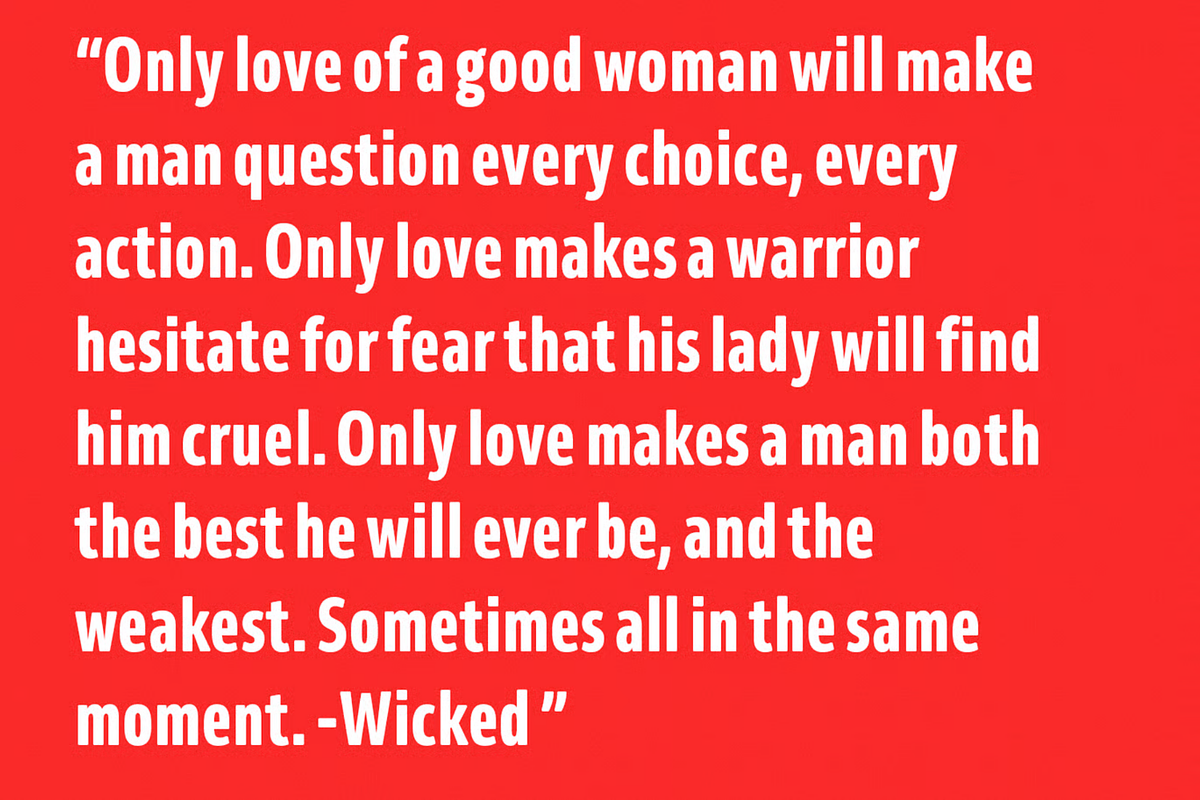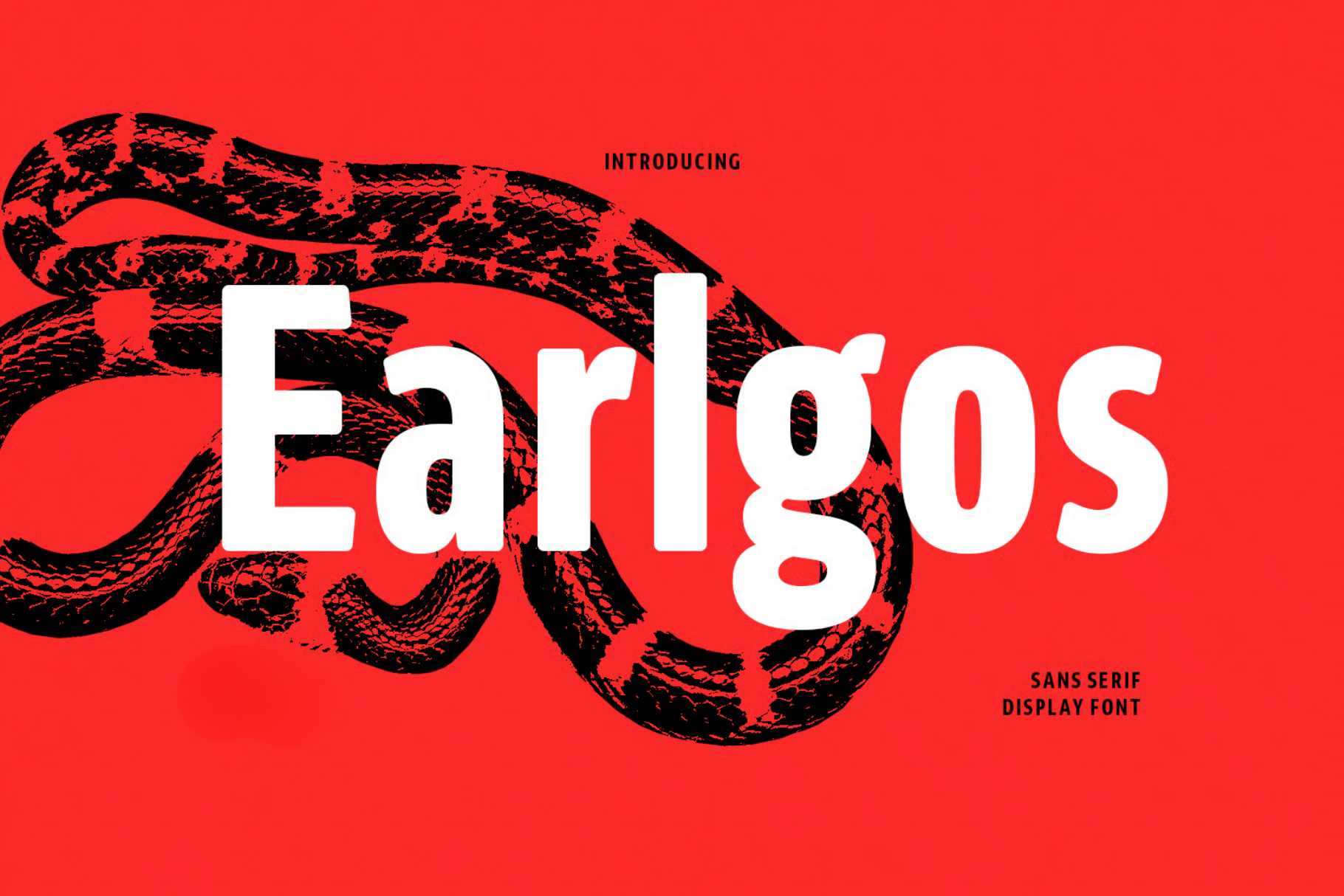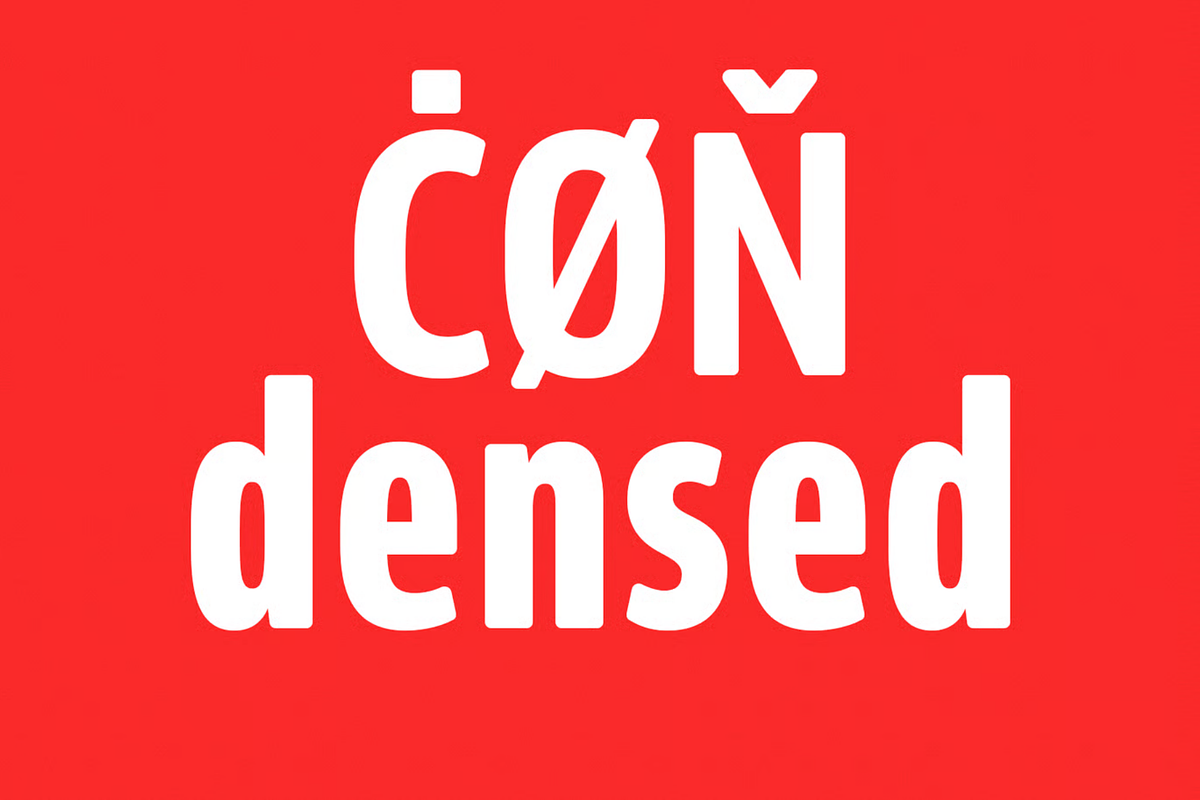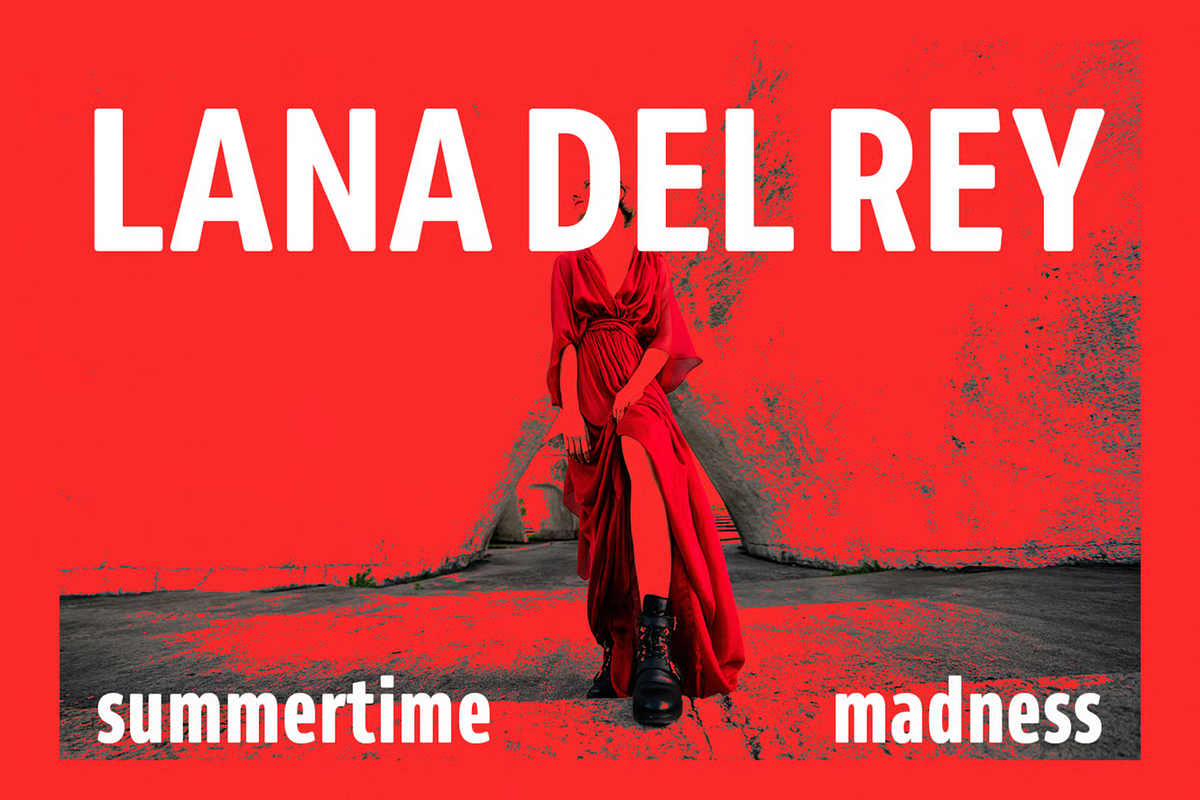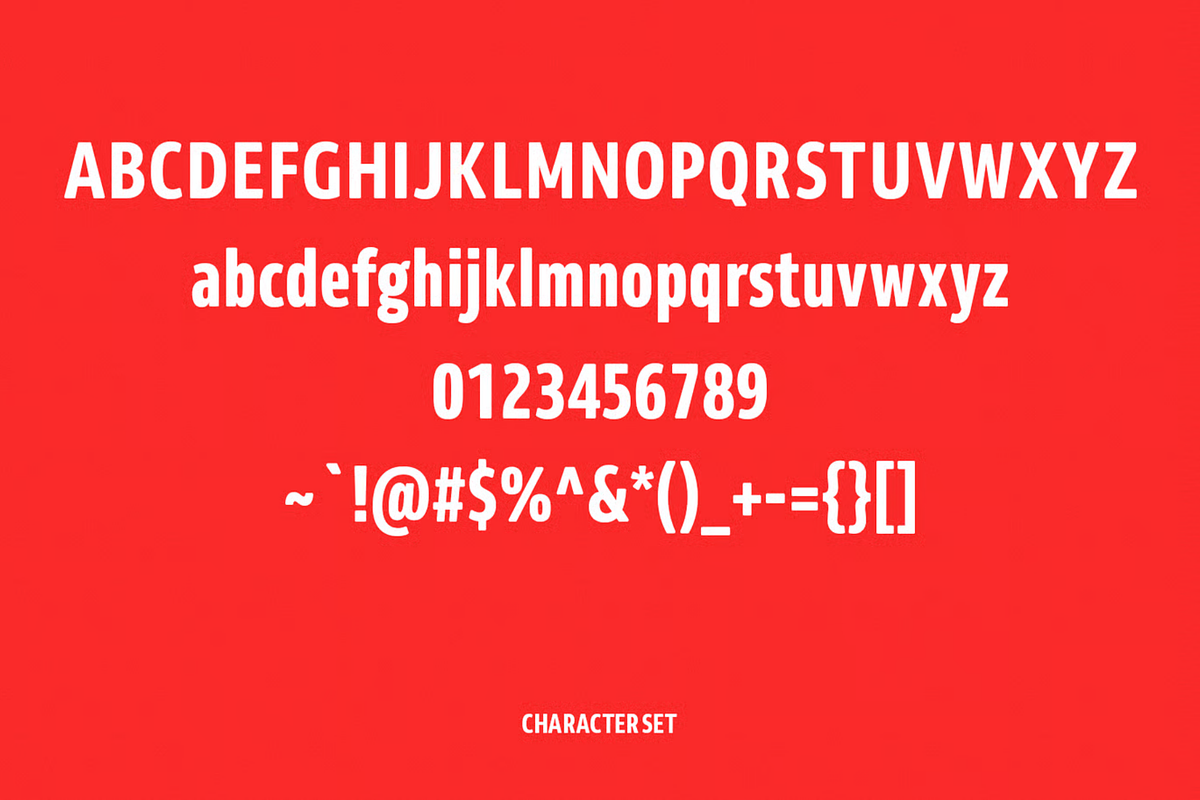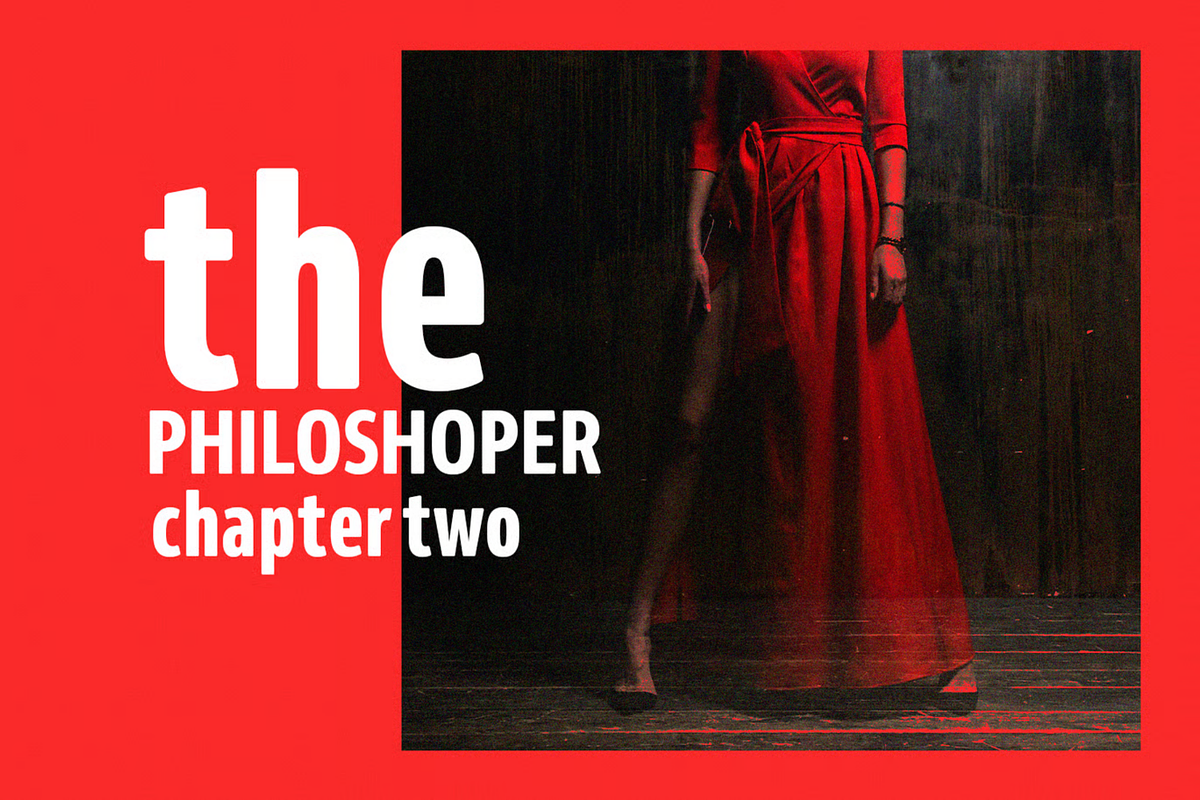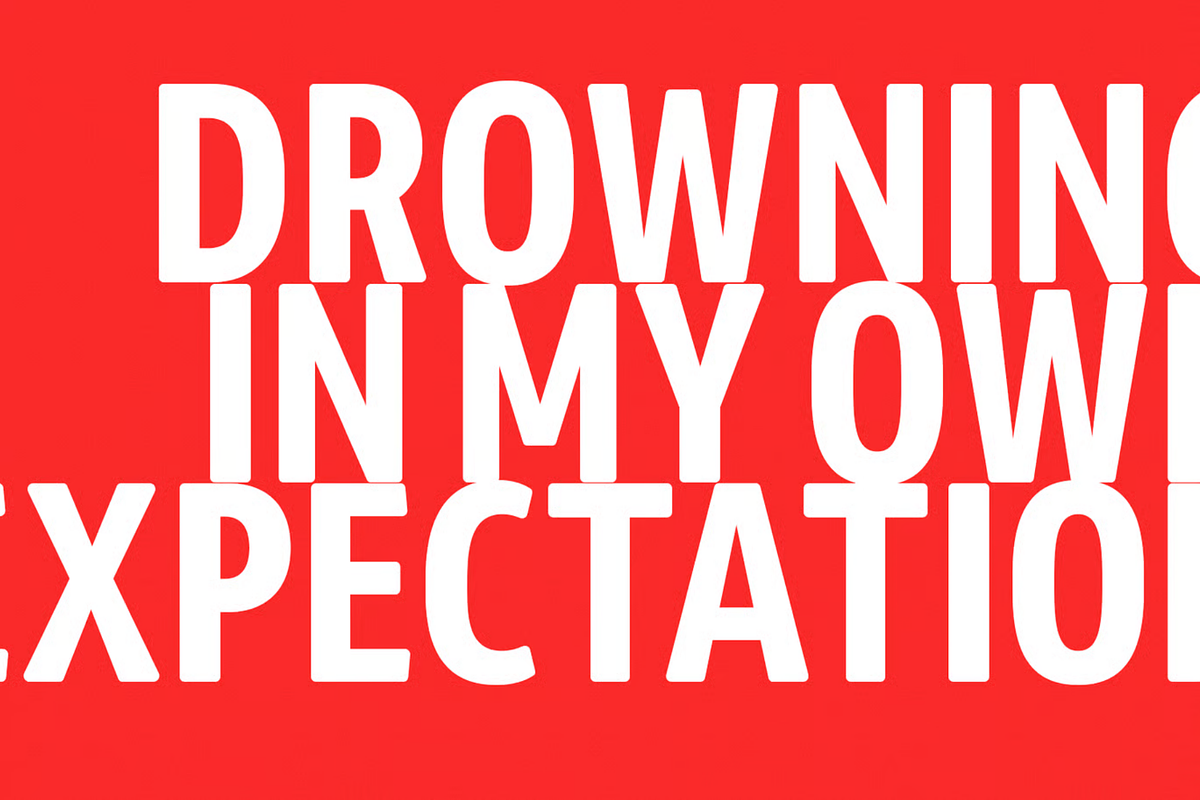
Earlgos Condensed Sans Font
Earlgos is a modern Condensed sans serif Display font. Bold stroke, fun character with a bit of ligatures and alternates. To give you an extra creative work. Earlgos font support multilingual more than 100+ language. This font is good for logo design, Social media, Movie Titles, Books Titles, a short text even a long text letter and good for your secondary text font with script or serif. Make a stunning work with Earlgos font.